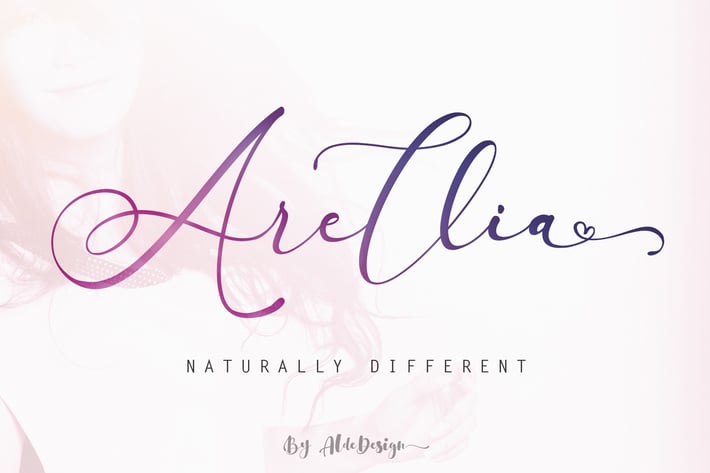
Arellia | Beautiful Script Font
Arellia Script is a beautiful font that features a varying baseline, smooth line, modern and with a depth love. For those of you who are need a touch of love and modernity for your designs or branding, it can be used for various purposes such as headings, wedding, invitation, signature, logos, branding, t-shirt, letterhead, signage, lable, news, posters, badges etc.
We design this font with OpenType features to give an artistic touch on it. This font is also applicable for numbers, punctuation, and other languages. It is also a multifunction font where you can use for a business logo, branding, wedding invitation, and anything you want.
Each Font Has:
Stylish modern handwritten script
Beautiful Swash (Ending tail)
Beautiful Titling (Beginning tail)
Special Ligatures
* Multilingual Support